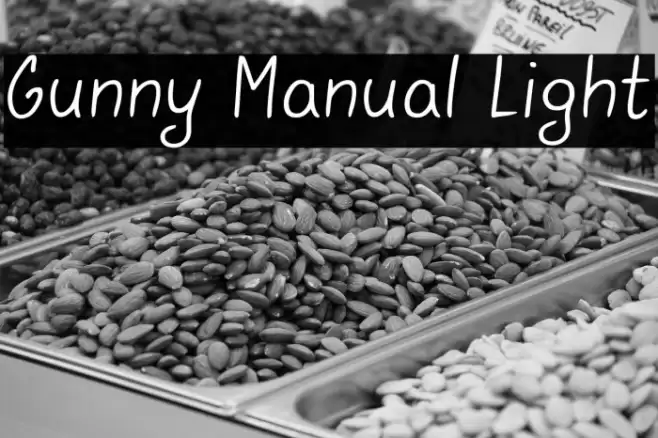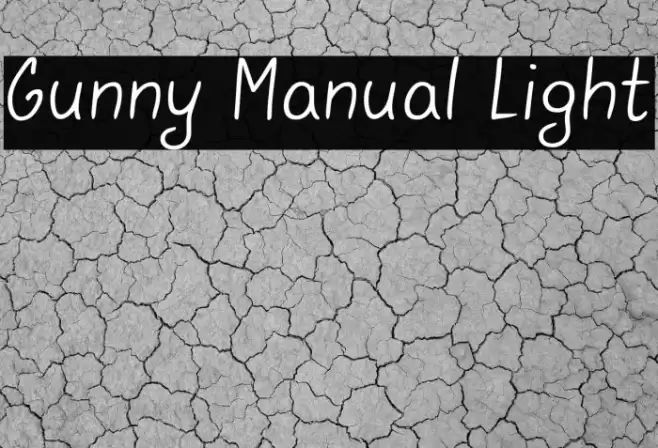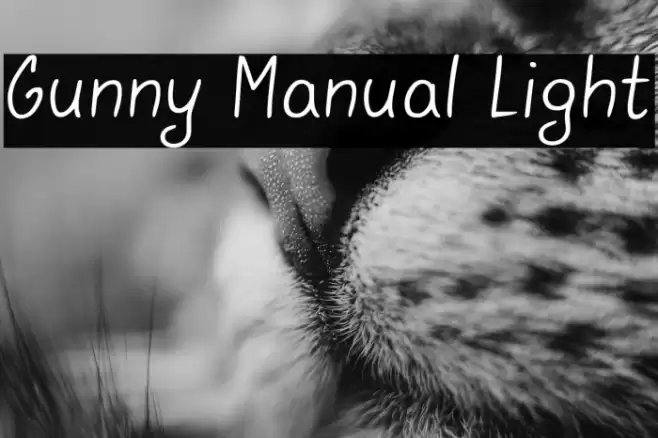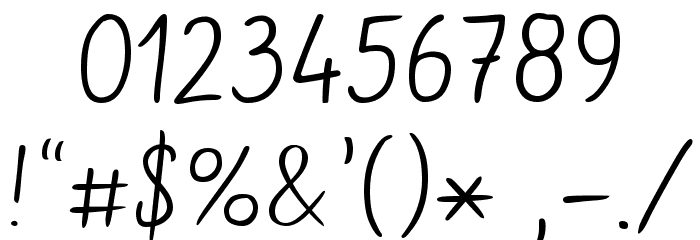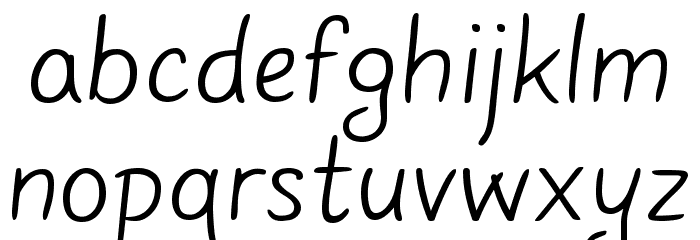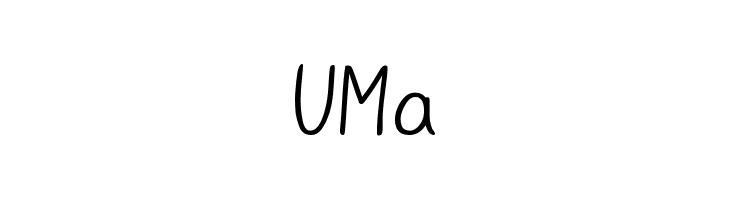
Gunny Manual Light Font
Gunny Manual Light Description
This font exhibits a handwritten style with a casual and friendly appearance. The characters are slightly slanted, giving it a dynamic and informal look. The strokes are consistent in width, contributing to a clean and legible presentation. The uppercase letters are tall and slightly narrow, while the lowercase letters maintain a uniform height, enhancing readability. Numbers are clear and distinct, matching the overall style of the alphabet. Special characters are well-integrated, maintaining the font's cohesive aesthetic. This font is versatile, suitable for projects that require a personal touch or an approachable feel.
A casual, handwritten font with consistent strokes and a friendly appearance from Regular fonts.
- Font: Gunny Manual Light
- Proposed Projects: Ideal for greeting cards, personal blogs, informal branding, and educational materials.
- Weight: Light
- Overall Style: Casual
- Use Case: Headlines, Informal text, Personal projects